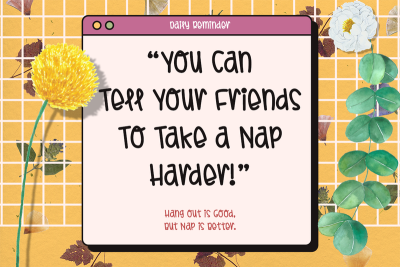
Cute Font Teen Days
Teen Days
Cute Font Teen Days is a playful typeface inspired by the charm of a teenager’s diary. With its casual, hand-drawn strokes and slightly imperfect lines, this font brings a sense of warmth and authenticity. Each letter feels like it was carefully drawn by hand, adding a nostalgic yet fresh touch. Bold yet friendly, Cute Font Teen Days is perfect for designs that need to capture attention with a relaxed vibe.
The font’s simple, fun aesthetic shines through its rounded, slightly uneven lines. This lively character makes it inviting and easygoing. Soft curves, subtle imperfections, and a flowing feel make it highly versatile for various uses. Cute Font Teen Days stands out in both digital and print formats, providing readability with a lighthearted touch. This font doesn’t just look appealing; it’s also practical, staying clear and clean even in smaller sizes.
Cute Font Teen Days evokes a sense of youthfulness and nostalgia, much like a school notebook filled with doodles and personal notes. This informal, diary-like look creates a comforting and relatable feel. It’s an ideal choice for brands and projects aimed at younger audiences or those seeking a playful, nostalgic element. The font is both personal and adaptable, fitting many themes while retaining its unique, handwritten charm.
Cute Font Teen Days Suitable For
Teen Days is great for designers and brands connecting with teens, young adults, or anyone wanting a fun, informal style. It’s perfect for social media graphics, especially in lifestyle or youth-oriented content. Its handwritten style adds a personal touch to Instagram posts, TikTok videos, or YouTube thumbnails, giving them an authentic feel. Influencers and bloggers can use this font to make content stand out while feeling relatable.
This font also suits brands targeting a youthful market, such as fashion, beauty, or stationery companies. this font can make logos, packaging, and brand materials feel friendly and approachable. A casual clothing brand, for example, could use this font to communicate a playful image.
Additionally, Cute Font Teen Days is excellent for educational materials, children’s books, and creative projects. Its playful, hand-drawn look is both engaging and readable, ideal for classroom resources or kid-friendly materials. Teachers, illustrators, and educational content creators can use it to bring warmth and excitement to learning materials.
Event planners will find Cute Font Teen Days perfect for party invitations, banners, and decorations with a youthful theme. It adds joy to birthday parties, teen gatherings, and DIY events. It’s also great for DIY enthusiasts, scrapbookers, and crafters adding a hand-drawn touch to their projects. Its versatility works well for personal projects like journals, planners, and scrapbooks.
In summary, this font is a charming typeface suitable for various applications. From social media to educational materials, it brings a youthful, creative spirit to any design. Its blend of readability, playfulness, and warmth makes it ideal for projects aimed at capturing the essence of youth and nostalgia.
Happiness will spread all over the world when Teen Days are used as the text.